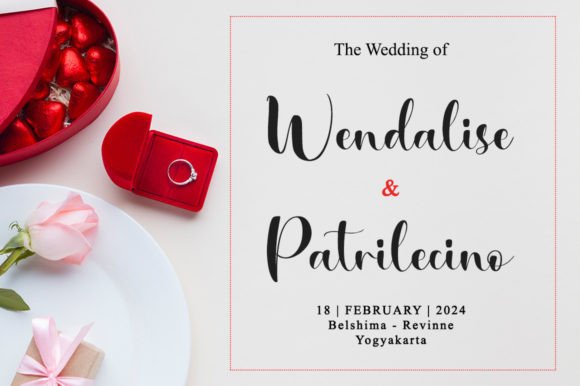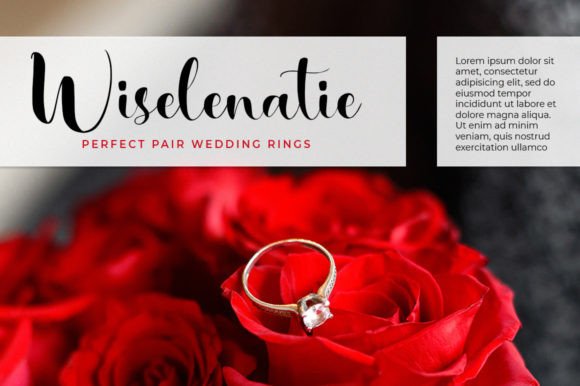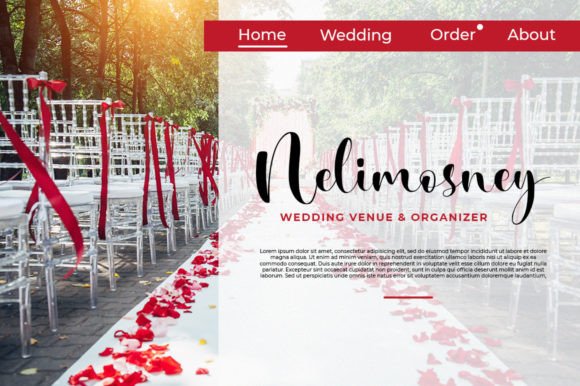
Introduction to Scarelitta Font
Have you ever been working on a creative project and just can’t find the right font to bring it to life? The perfect font can make all the difference in setting the tone and style of your design. That’s where the beautiful Scarelitta Font comes in. This elegant script font is the perfect addition to any design project, offering a classy and modern look that’s sure to impress.
As a designer, you know the importance of having a high-quality design resource at your fingertips. With the Scarelitta Font, you’ll have access to a gorgeous typographic style that’s perfect for a wide range of projects, from logos and branding to invitations and wedding designs. And the best part? It’s available for free download, making it a valuable asset for any creative project.
Key Features of Scarelitta Font
- High-quality design: Scarelitta Font offers a unique and stylish design that is perfect for creative projects, with a transparent background that allows for seamless integration.
- High-resolution design: The font is designed at a high resolution, making it suitable for use in both print and digital applications.
- Unique characteristics: Scarelitta Font features a distinctive and eye-catching design, with a range of styles and weights to choose from, making it an excellent addition to any design resource.
- Perfect for creative projects: Scarelitta Font is ideal for use in creative projects, such as logos, branding, and graphic design, due to its high-quality design and versatility.
Honest Review: Scarelitta Font
I recently had the chance to work with the Scarelitta Font for a creative project and I must say it was a pleasant experience. The font has a beautiful, elegant design that is perfect for various design applications.
- High-quality design: The Scarelitta Font is well-designed and has a professional look to it.
- Transparent background: The font comes with a transparent background, making it easy to use in various design scenarios.
- Limited font weights: The Scarelitta Font only comes in a few font weights, which may limit its use in certain situations.
- No bold or italic versions: Unfortunately, the font does not come with bold or italic versions, which can be a drawback for some designers.
- Not suitable for large text: The font is best suited for small to medium-sized text, and may not be the best choice for large headings or body text.
Overall, I was impressed with the Scarelitta Font and would recommend it to designers who are looking for a high-quality, elegant font for their creative projects.
Using Scarelitta Font in Creative Projects
Scarelitta Font is a high-quality design resource ideal for creative projects requiring a unique and eye-catching style. Use it in Canva, Adobe Photoshop/Illustrator, or PowerPoint/Word to give your designs a professional touch.
Tips for Getting the Most Out of Scarelitta Font
To get the most out of Scarelitta Font, experiment with different font sizes, colors, and styles to find the perfect combination for your design. You can also pair it with other high-quality design resources to create a unique and eye-catching look.
Common Use Cases for Scarelitta Font
Scarelitta Font is ideal for use in various creative projects, including graphic design, digital art, and marketing materials. Its unique style and high-quality design make it a great choice for designers looking to add a professional touch to their work.